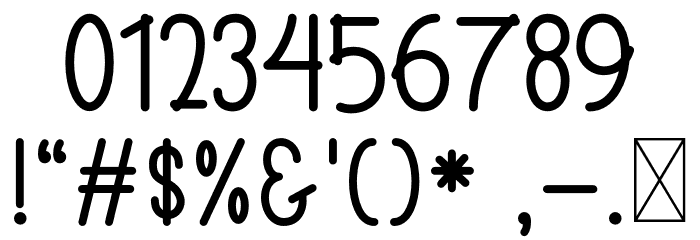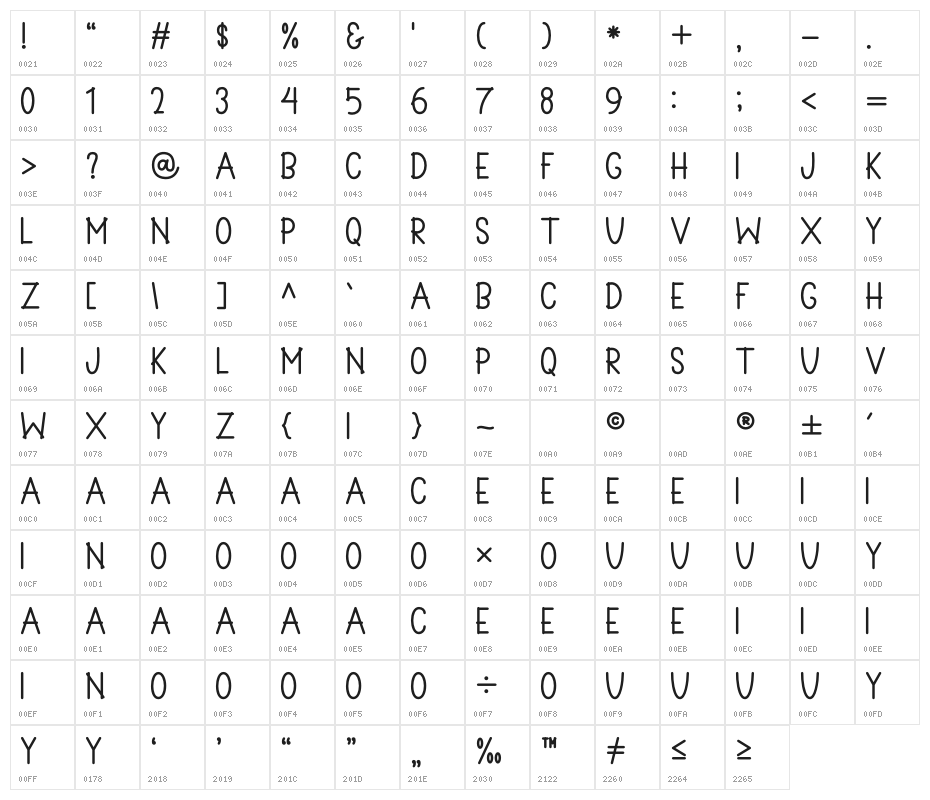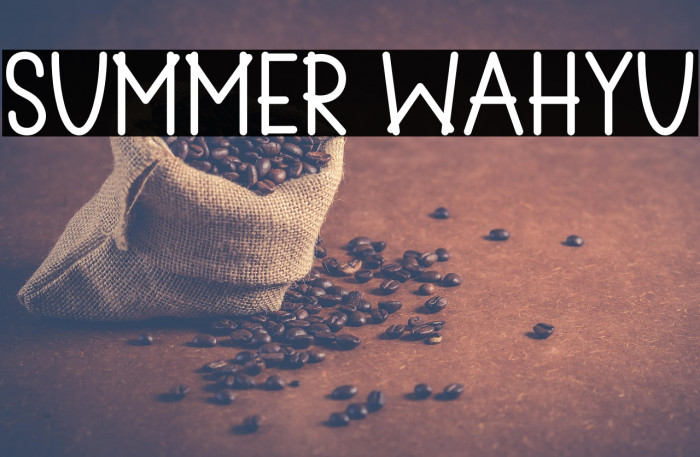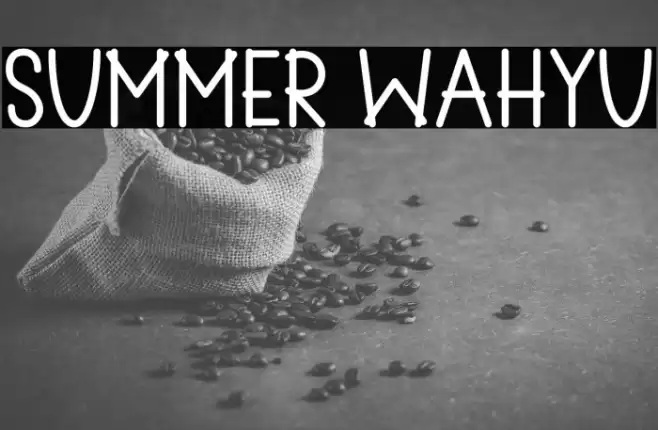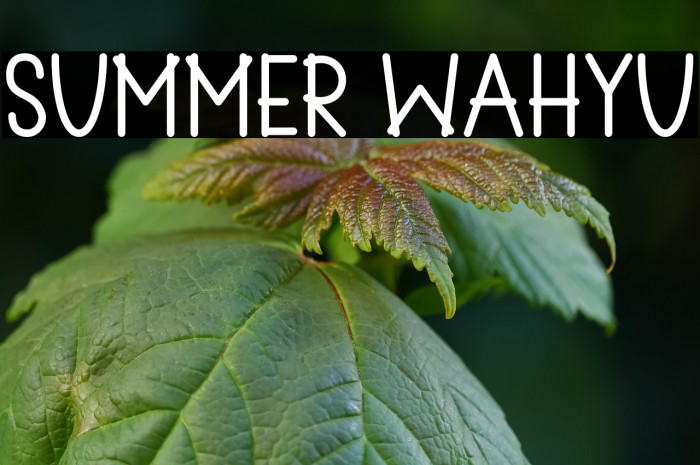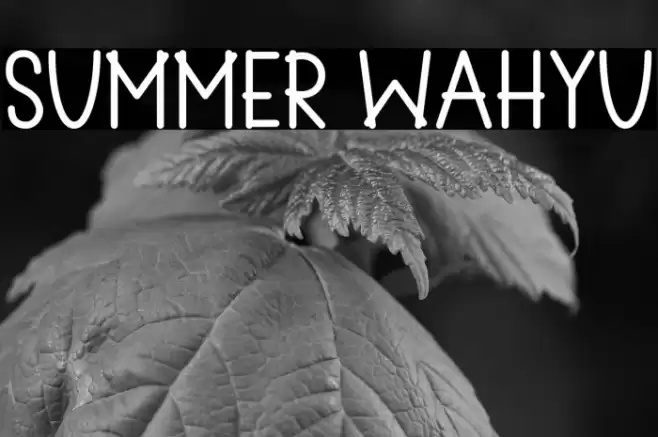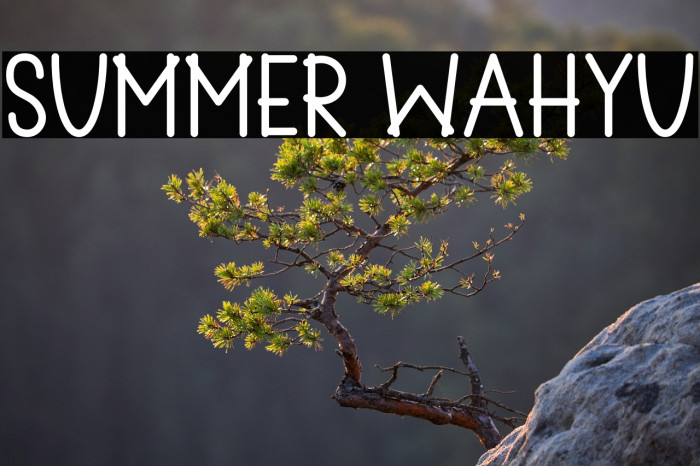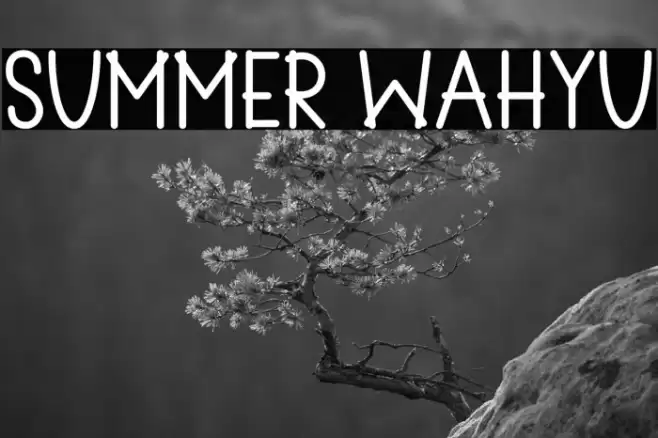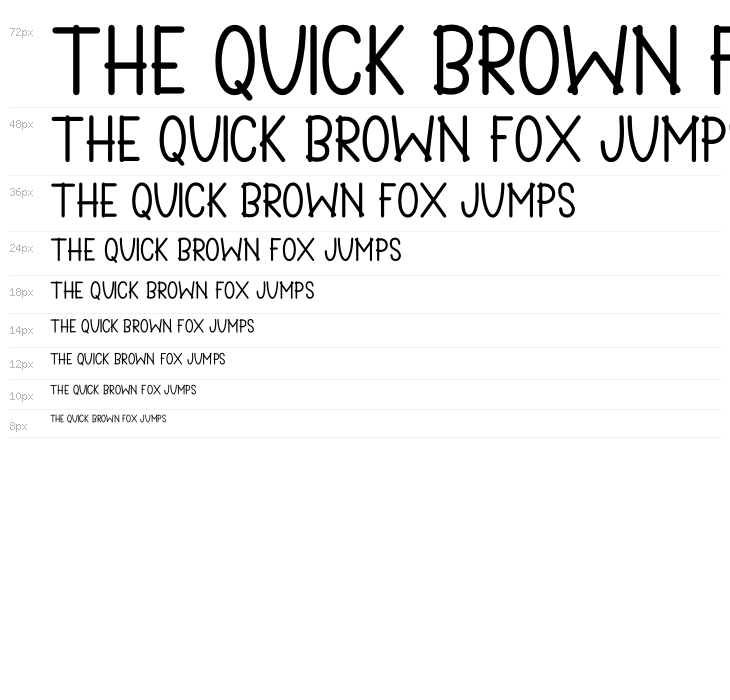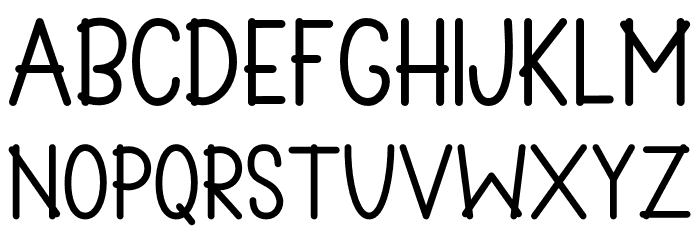
Summer Wahyu Font
Summer Wahyu Description
This font features a playful and casual handwritten style, characterized by its rounded and slightly irregular letterforms. The strokes are consistent in thickness, giving it a uniform appearance while maintaining a friendly and approachable vibe. The characters are well-spaced, ensuring readability, and the overall design is clean and uncluttered. The numerals and special characters complement the alphabet with the same informal aesthetic, making it versatile for various uses. Its simplicity and charm make it suitable for projects that require a personal touch.
| Use Case | Headlines, Informal text, Branding |
| Proposed Projects | Ideal for greeting cards, children's books, casual branding, and social media graphics. |